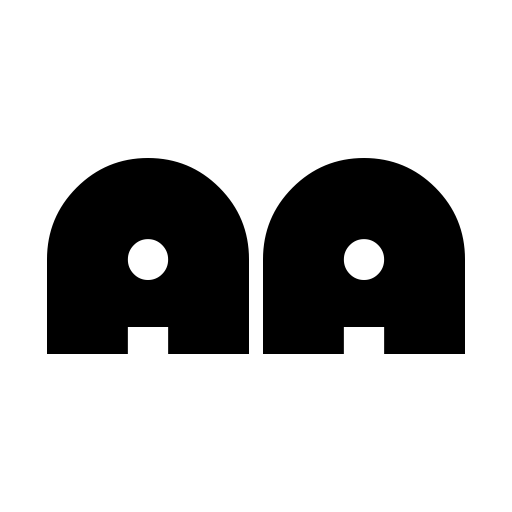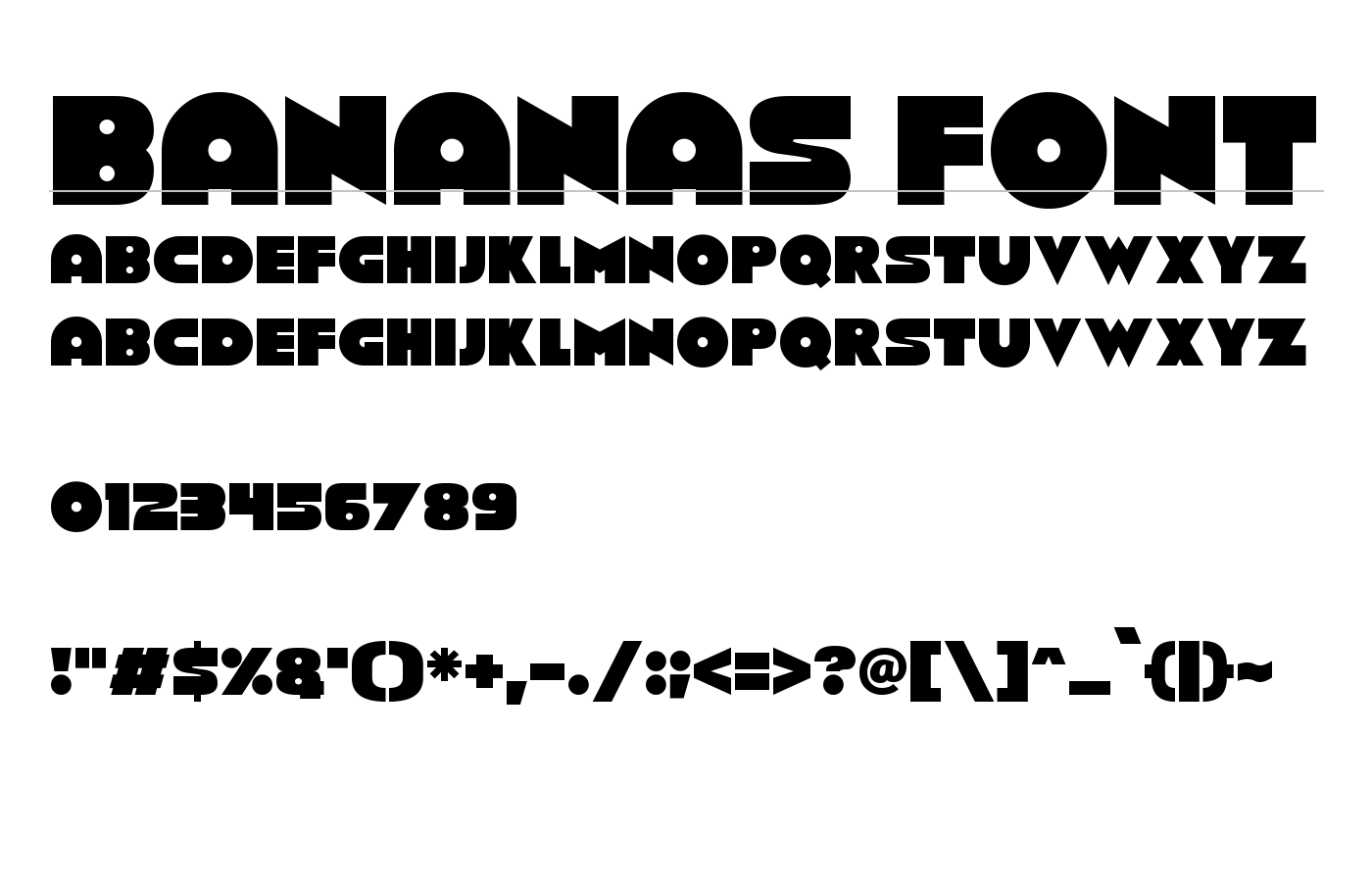
Bananas Font is a bold, geometric sans serif typeface with a playful and modern vibe. Its thick, blocky letterforms and strong presence make it ideal for eye-catching headlines, logos, and branding that want to convey fun and confidence. This font works especially well in designs seeking a unique, contemporary look with a touch of retro charm.
Bananas Font
About Bananas Font